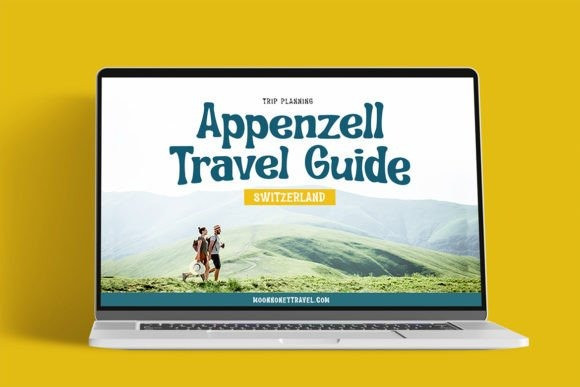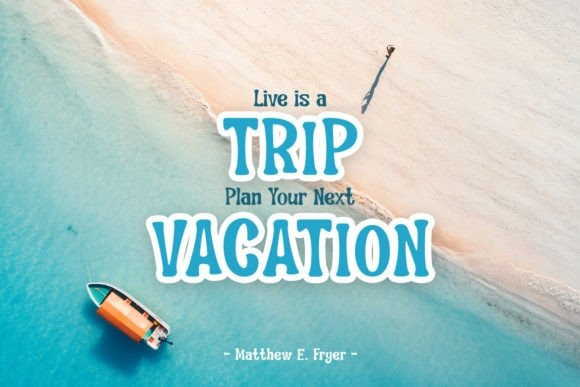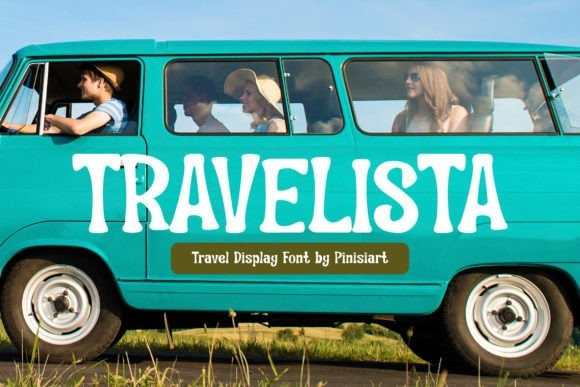
Travelista Font
Travelista Display Font is a cute, friendly, and playful display font perfect for children’s books, online games, stationery, school supplies, posters, movie titles, Youtube covers, thumbnails, social media posts,…
Travelista Vacation Display Font. When you think of a getaway from these hectic working days, then Travelista will make that dream come true.